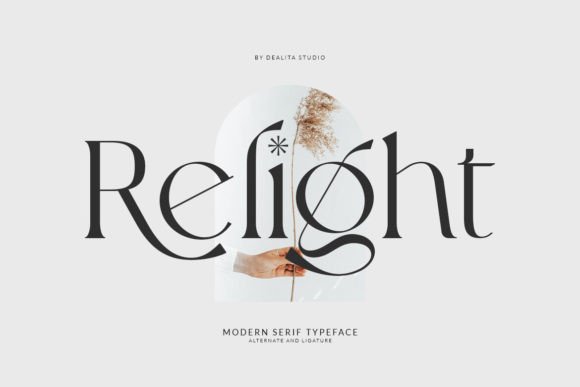
Introducing Relight Font, the epitome of chic and elegance in the world of typography. As a display modern serif with stunning contrast, this font is specifically designed to cater to the needs of fashion brands. With its exquisite aesthetics, Relight Font is the ultimate choice for creating captivating logos, titles, magazines, and so much more.
Crafted by the talented team at dealitastudio, Relight Font is more than just a typeface – it's a masterpiece that embodies the essence of high fashion. Its sleek and stylish design instantly elevates any project, making it perfect for those seeking to leave a lasting impression.
When it comes to fashion-themed projects, Relight Font reigns supreme. Its versatility knows no bounds, allowing you to effortlessly communicate your brand's unique personality. Whether you're designing for a luxurious fashion label or a trendy lifestyle magazine, this font will add that touch of sophistication that sets you apart from the crowd.
Imagine the impact of your logo adorned with Relight Font – it exudes confidence, allure, and a sense of timeless beauty. Your brand will become synonymous with elegance, capturing the attention of fashion enthusiasts and potential customers alike.
With Relight Font, creativity knows no limits. Its curated selection of characters and glyphs provides endless possibilities for your design endeavors. From bold headlines to delicate script, this font effortlessly adapts to your vision, ensuring consistency and cohesiveness throughout your brand identity.
Don't miss out on the opportunity to make a statement with Relight Font. Its captivating allure, combined with its functionality, makes it an invaluable asset for any fashion brand. Embrace the power of this font and watch as your designs come to life, captivating your audience and leaving a lasting impression.